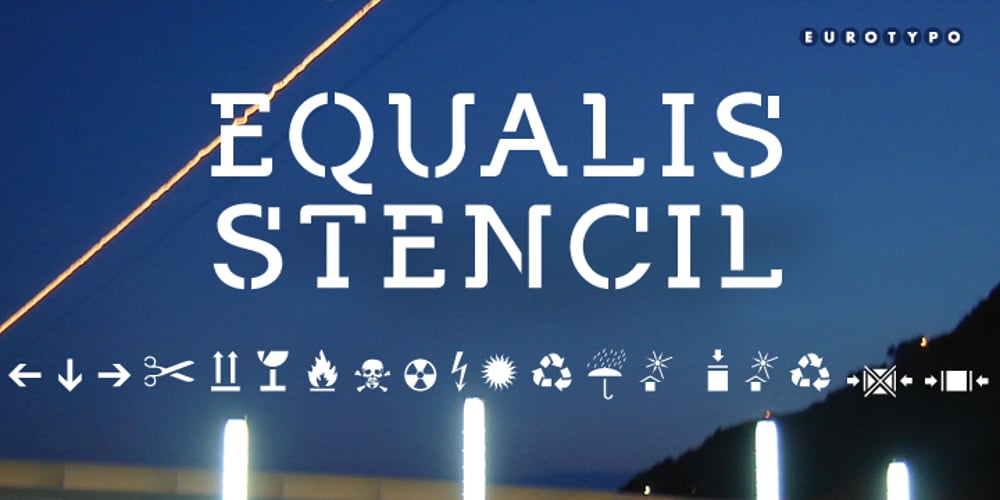
Equalis Stencil Font Family was designed by Olcar Alcaide, Juan A. Lavalle and published by Eurotypo. Equalis Stencil contains 3 styles and family package options. Equalis Stencil is a slab-serif typeface. This OpenType font comes in three weights, alternates and symbols, with support for CE languages. Equalis Stencil can be used as display type, headlines, packaging, signs routing and a wide range of projects.